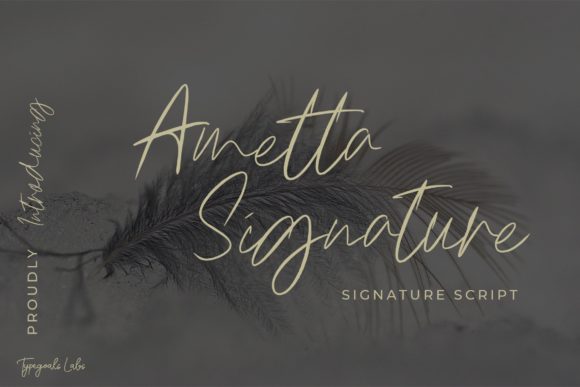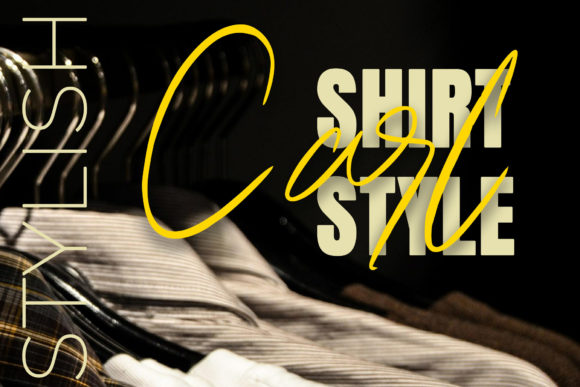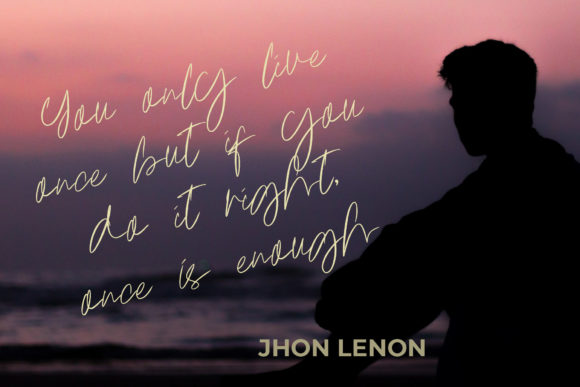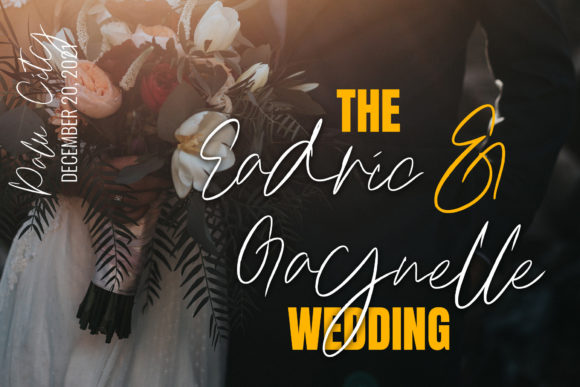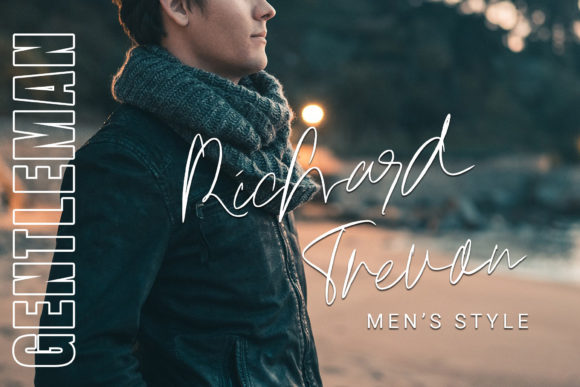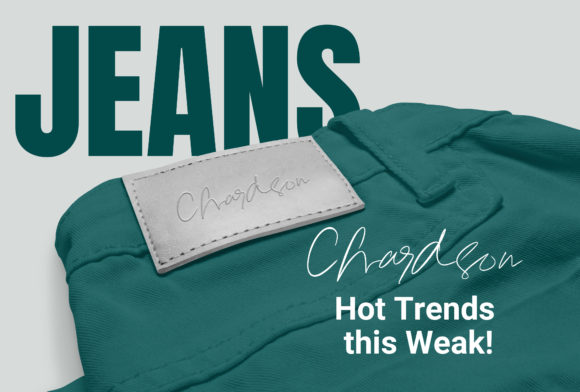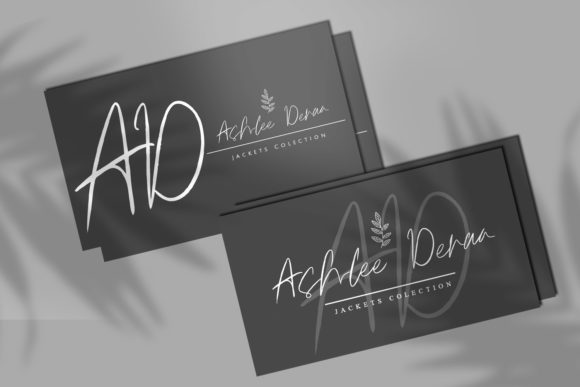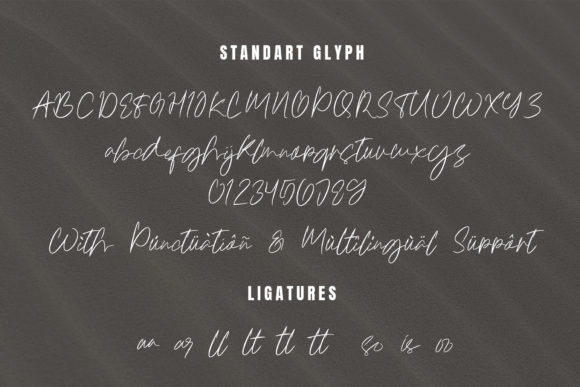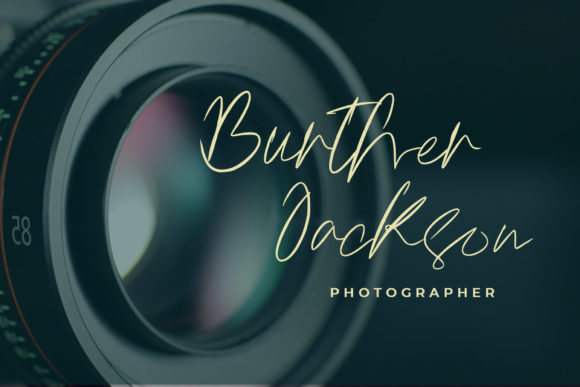
Ametta Signature Script Font
About Ametta Signature Script Font
Ametta Signature Script is a lovely thin lettered script font. This luxurious font looks beautiful on a variety of designs requiring a personalized style, such as wedding invitations, thank you cards, weddings, greeting cards, logos and so on.